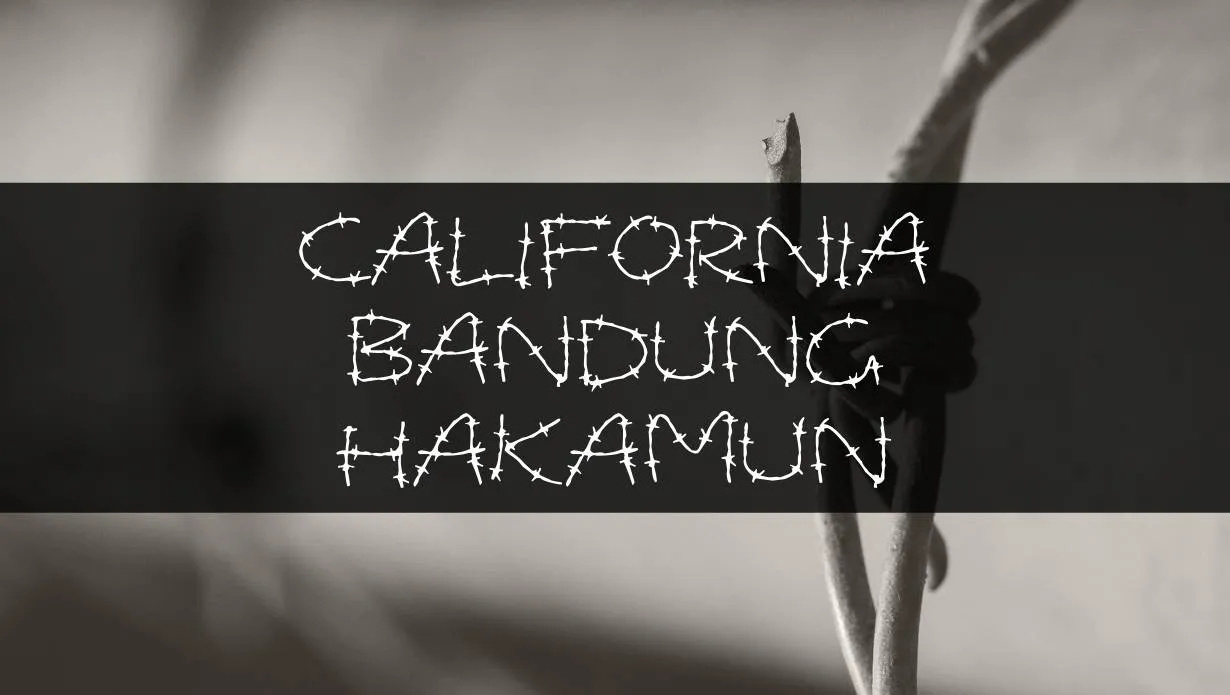
The Barbed Wire font is a great choice for any project that needs a bit of an edge. It’s perfect for creating headlines or titles that really stand out.
And because it’s a display font, it’s also very easy to read. This font is similar to the Cowboy Font.
| Designer | Freaky Fonts |
| Style | Display |